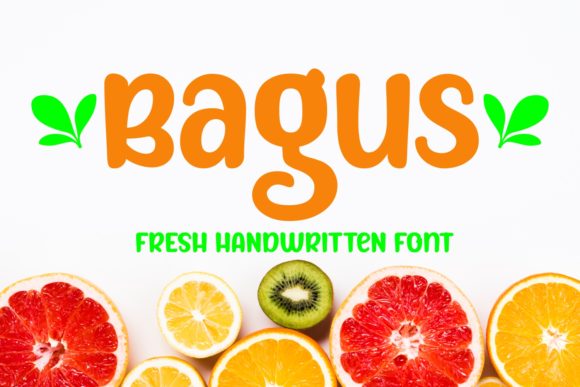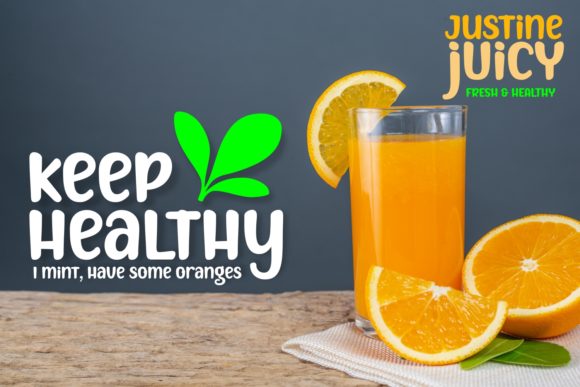
Bagus Font
About Bagus Font
Bagus simplifies beauty into one truly outstanding handwritten font. It maintains its classy calligraphic influences while feeling contemporary and fresh. This versatility will appeal to a wide range of crafty ideas, from letterheads and titles, to stationery.